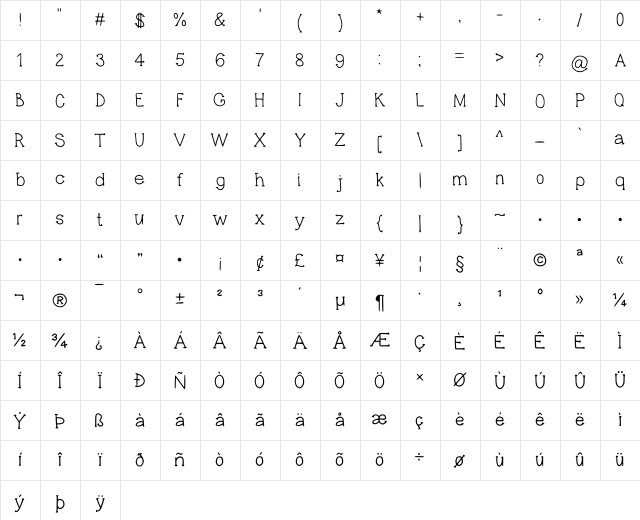
THINK Regular
Design Context for THINK Typeface
THINK is a composed and adaptable typeface that performs quietly and consistently across a wide range of design contexts. The delicate stroke weight brings airiness and refinement to layouts.